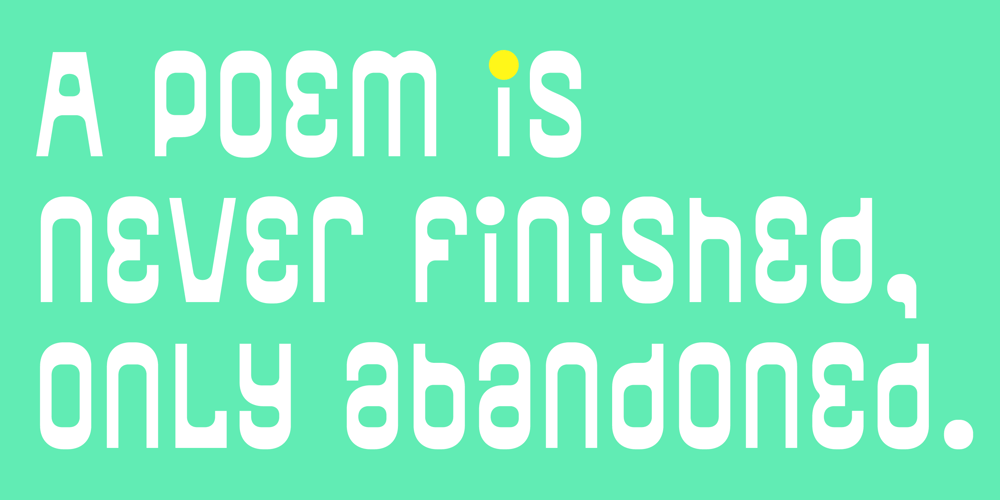
African Elephant Trunk
African Elephant Trunk Font Family was designed by Ryoichi Tsunekawa and published by Dharma Type. African Elephant Trunk contains 1 styles and family package options. Based on retro vinyl records in the early and middle of 20th century. This font includes small caps for advanced typography. There are three other fonts designed by in the same concept. -Moon Star Soul -Rebel Train Goes -Word From Radio -African Elephant Trunk